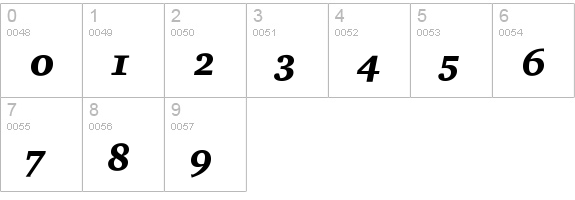
CharterEF-BlackItalicOsF Font Details
CharterEF-BlackItalicOsF is a sophisticated and elegant font that adds a touch of class to any design project. With its bold yet graceful curves and distinctive italic styling, this typeface exudes a sense of luxury and professionalism. Ideal for use in headings, titles, and other prominent text, CharterEF-BlackItalicOsF commands attention and makes a lasting impression. The best part? This stunning font is available for free download at FontsMarket.com. Whether you're working on a branding project, creating a poster, or designing a website, CharterEF-BlackItalicOsF is sure to elevate your work to the next level. Don't miss out on this opportunity to enhance your designs with this exquisite typeface. Download it now and see the difference it can make!